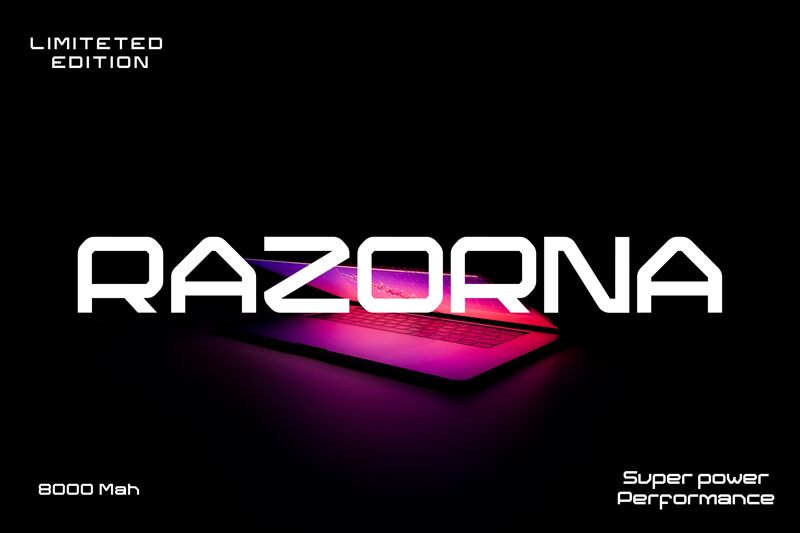
The Collonse font, crafted by the talented designer Sifak Muf of Liarttype, radiates a captivating blend of modern elegance and striking presence. With its sleek, sans-serif lines and expanded width, this font exudes a sense of confidence and sophistication, making it a compelling choice for a wide range of design projects.
Collonse's versatility shines through its ability to seamlessly integrate into various design contexts, from packaging and logos to magazines and landing pages. Its distinctive character and bold aesthetic lend themselves exceptionally well to eye-catching headlines, impactful branding, and attention-grabbing promotional materials, ensuring your designs stand out in a crowded marketplace.